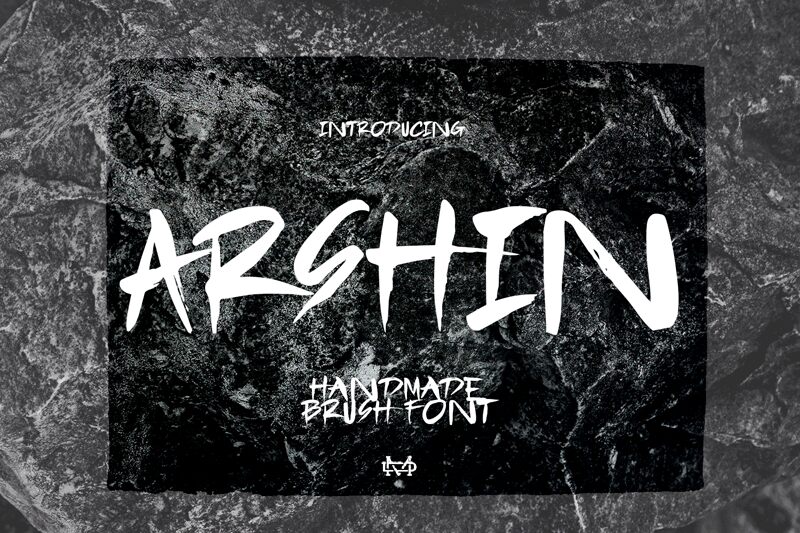
Arshin Demo Regular
Arshin, a captivating brush font crafted by madeDeduk, exudes a raw, energetic charm that commands attention. Boasting dynamic strokes and a bold, expressive personality, this font radiates a sense of spontaneity and individuality. The organic, hand-drawn aesthetic lends a distinctive character to any design, evoking a feeling of authenticity and artisanal flair.
Arshin's versatility shines through, making it a versatile choice for a wide range of design projects. Its bold, attention-grabbing presence makes it an ideal selection for headlines, logos, and eye-catching branding elements. Equally, its expressive nature lends itself well to creative applications, such as album covers, event posters, and packaging designs, where a touch of personality is desired.